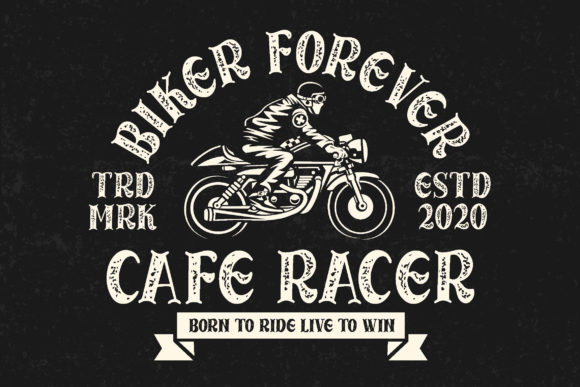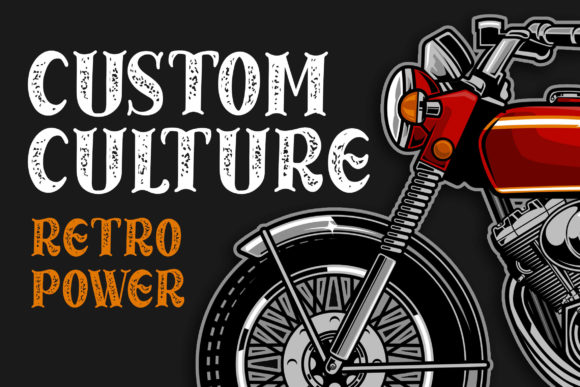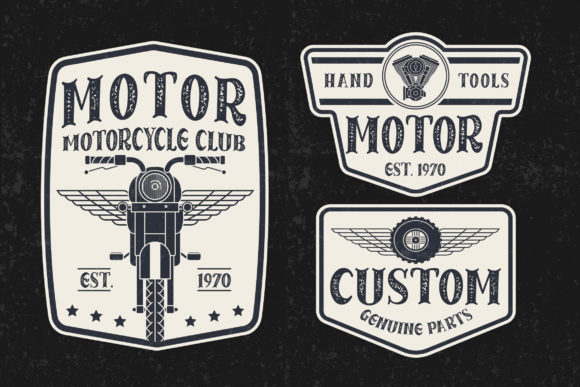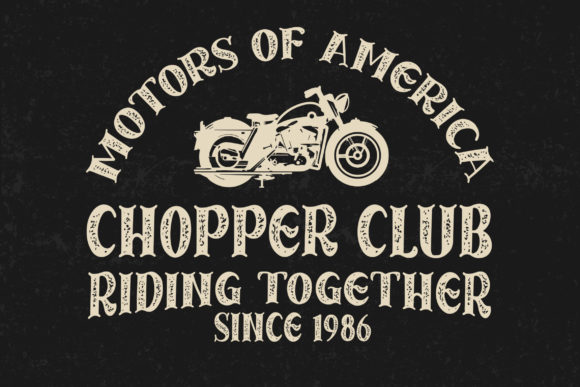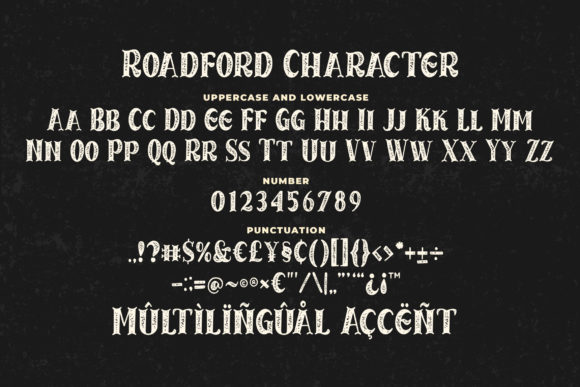
Introduction to Roadford Rought Font
Have you ever found yourself stuck in a design rut, scrolling through countless font options, desperate for that perfect combination of charm and character? I know I have. It’s moments like these that I’m reminded of the importance of a great design resource – something that can breathe life into even the most mundane projects. And that’s exactly what the Roadford Rought Font has done for me.
This incredibly rustic serif font is more than just a pretty face; its raw, unfiltered feel has a way of transporting you to a bygone era, where design was all about simplicity and honesty. With its cute, down-to-earth vibe, it’s no wonder designers are clamoring for access to this high-quality font.
Key Features of Roadford Rought Font
- High-quality design resource ideal for creative projects, offering a unique and stylish look.
- Unique, hand-crafted design with subtle texture and imperfections, adding a touch of authenticity to any project.
Honest Review: Roadford Rought Font
I recently stumbled upon the Roadford Rought Font and I must say it’s a great addition to any design resource collection. The font’s unique, high-quality design makes it perfect for creative projects that require a bold and edgy look.
One of the standout features of this font is its transparent background, which allows designers to easily overlay it on top of other design elements. This makes it incredibly versatile and easy to work with.
- High-quality design that stands out in creative projects
- Some users may find the font too bold or edgy for certain design projects
- May not be suitable for projects requiring a more minimalist or subtle look
Overall, I’m impressed with the Roadford Rought Font and I think it’s a great addition to any design resource collection. It’s perfect for designers who want to add a bit of edge and creativity to their projects.
Tips for Getting the Most Out of Roadford Rought Font
To get the most out of Roadford Rought Font, experiment with different font sizes, colors, and combinations to create a unique and engaging visual effect. This font is particularly versatile and can be used in a variety of creative projects, from logos and branding to infographics and posters.
Common Use Cases for Roadford Rought Font
The Roadford Rought Font is ideal for a range of applications, including business cards, flyers, brochures, and social media graphics. Its unique design and high-quality typography make it a valuable asset for any creative project.